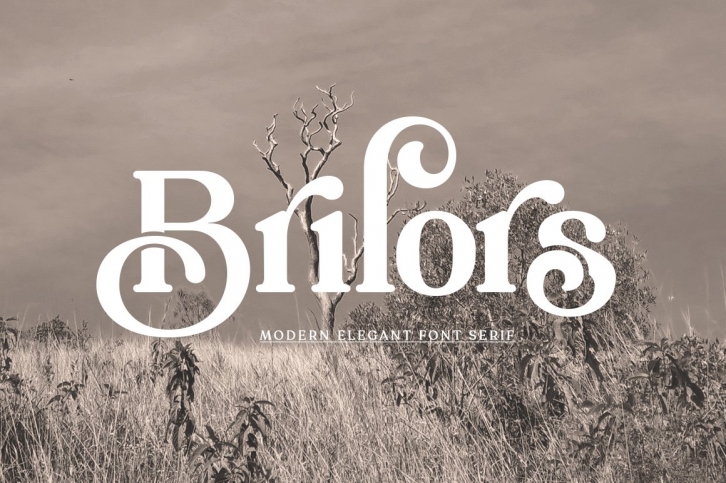
Brilors Serif is a great font that was designed by Zane Studio. Imagine the amount of combinations you can create using this font! The archive is 21.10 MB and it was released on October 25, 2021. Brilors Serif looks beautiful on wedding invitations, greeting cards, logos, posters, labels, t-shirt designs, logos, business cards and is perfect for use in ink or watercolor works, fashion, magazines, packaging and food menus, children's books and more!